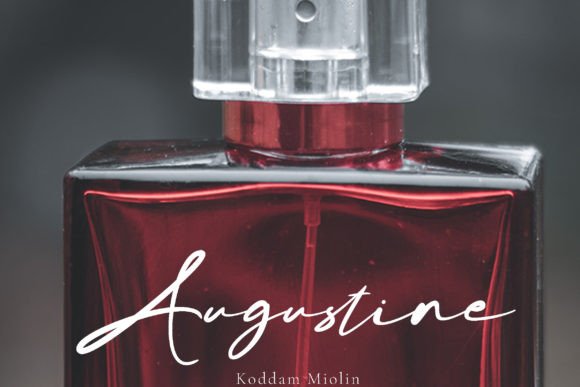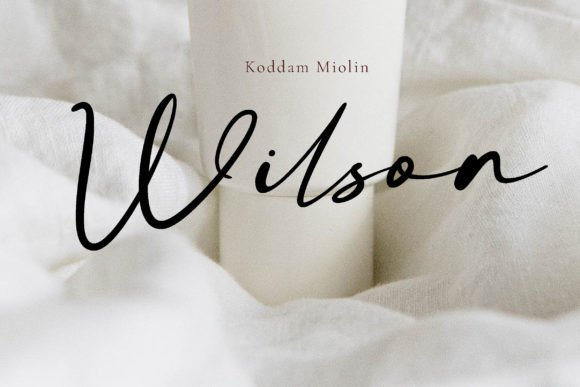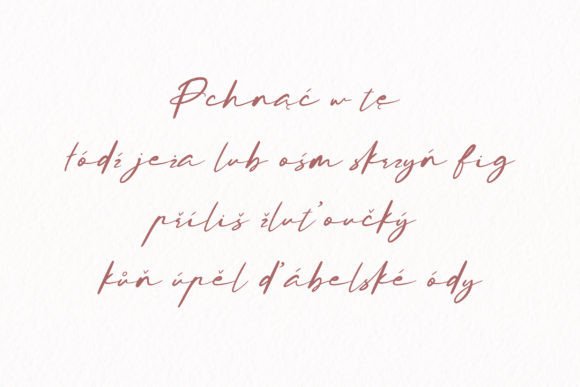
Introduction to Koddam Miolin Font
As a designer, there’s nothing quite like the thrill of bringing a creative project to life. The moment you find the perfect font, the whole design starts to take shape, and you can envision the final result. That’s exactly what happens when you discover the Koddam Miolin Font – a high-quality, handwritten script font that exudes elegance and charm. With its flowing, graceful curves, it’s the perfect addition to any design project, whether it’s an invitation, logo, or branding material.
The Koddam Miolin Font is a valuable resource for designers, offering a level of sophistication and personal touch that’s hard to find in other fonts. Its delicate strokes bring warmth and creativity to your projects, making it a must-have for any design enthusiast. And the best part? It’s available for free download, making it an accessible design resource for everyone.
Whether you’re working on a personal project or a client’s branding, the Koddam Miolin Font is sure to elevate your design to the next level. With its transparent background and high-quality design, it’s the perfect choice for any creative project that requires a touch of elegance and sophistication.
Key Features of Koddam Miolin Font
- High-quality design resource ideal for creative projects, offering a unique and stylish aesthetic.
- Unique characteristics include a mix of modern and vintage elements, making it perfect for a wide range of creative projects.
- Designed to be highly versatile, allowing users to experiment with different font styles and combinations.
Honest Review: Koddam Miolin Font
I recently came across the Koddam Miolin Font, and I must say, it’s a great addition to any design resource. The font is a high-quality, versatile option that can be used for a wide range of creative projects.
- The Koddam Miolin Font has a beautiful, hand-drawn feel that’s perfect for designs that need a touch of elegance.
- The font is highly customizable, making it easy to adjust the size, color, and style to fit your design needs.
- The transparent background makes it easy to overlay text on top of images or other design elements.
- The font may not be suitable for projects that require a bold, bold font face.
Overall, I’m impressed with the Koddam Miolin Font. It’s a great option for designers who need a high-quality, versatile font for their creative projects. While it may have some limitations, it’s definitely worth checking out.
The Koddam Miolin Font is a high-quality design resource perfect for creative projects that require a unique and eye-catching touch. With its transparent background, this font is ideal for adding a touch of elegance to your designs.
Tips for Getting the Most Out of Koddam Miolin Font
To get the most out of the Koddam Miolin Font, use it in conjunction with other design elements to create a cohesive look. Experiment with different font sizes, colors, and styles to find the perfect combination for your creative project.
The Koddam Miolin Font is ideal for use in creative projects such as logos, brochures, posters, and social media graphics. Its unique design and transparent background make it perfect for adding a touch of elegance to your designs.